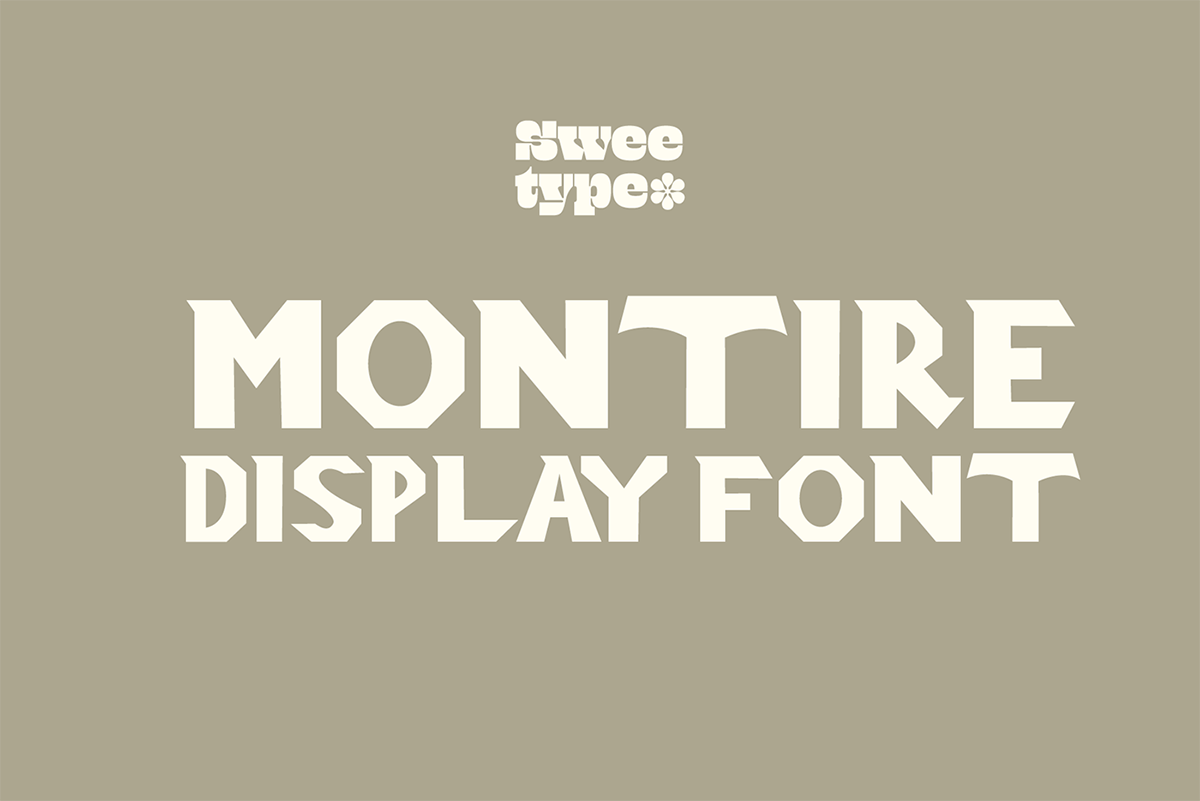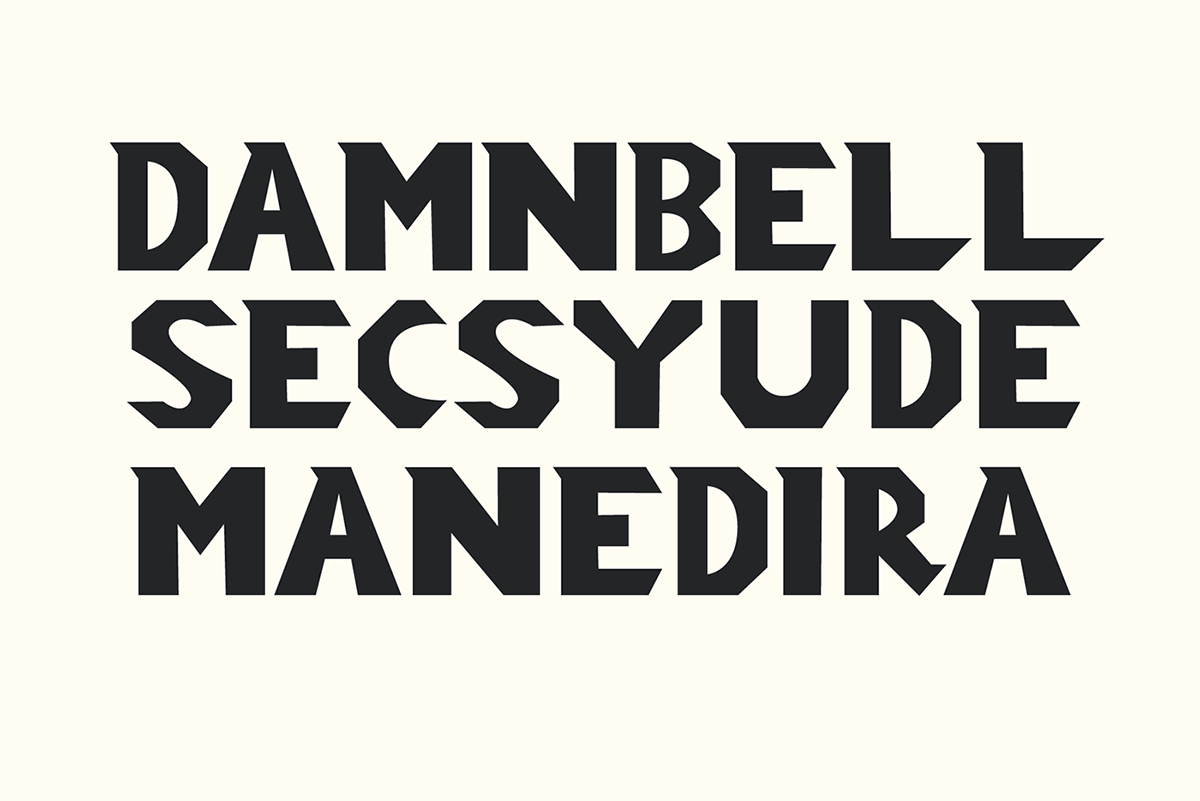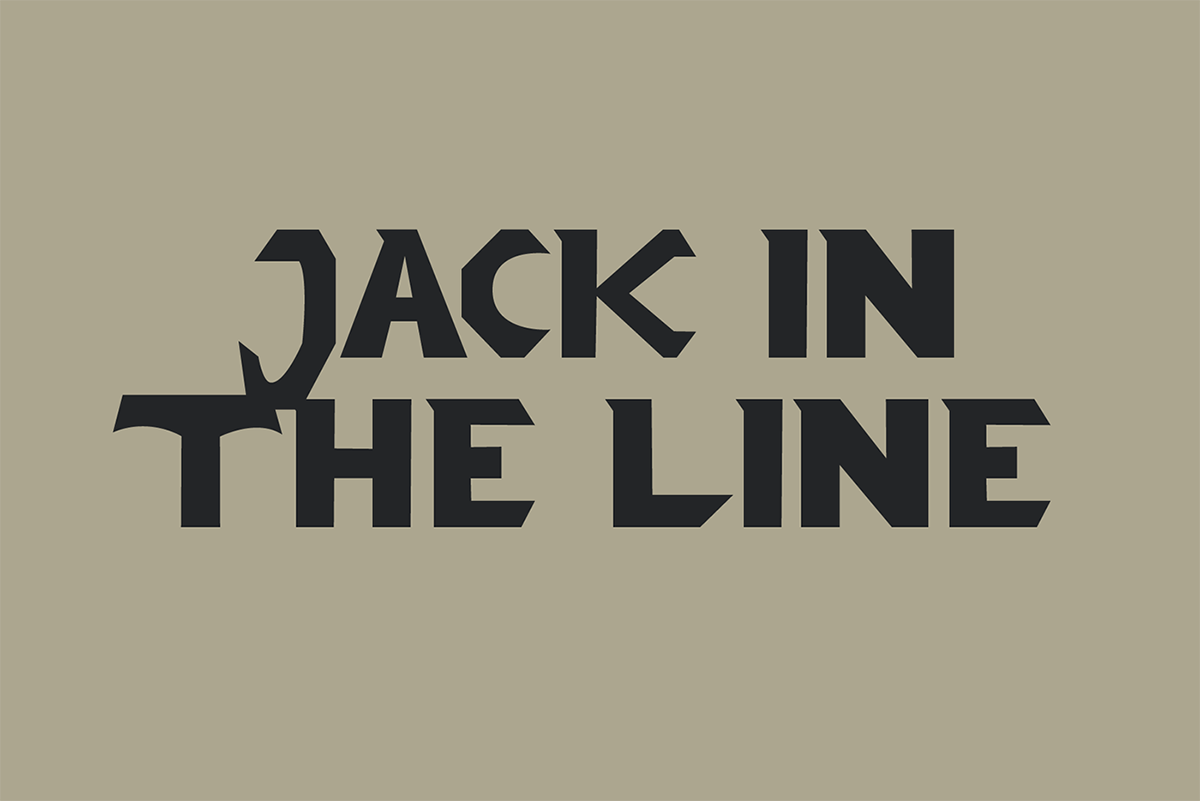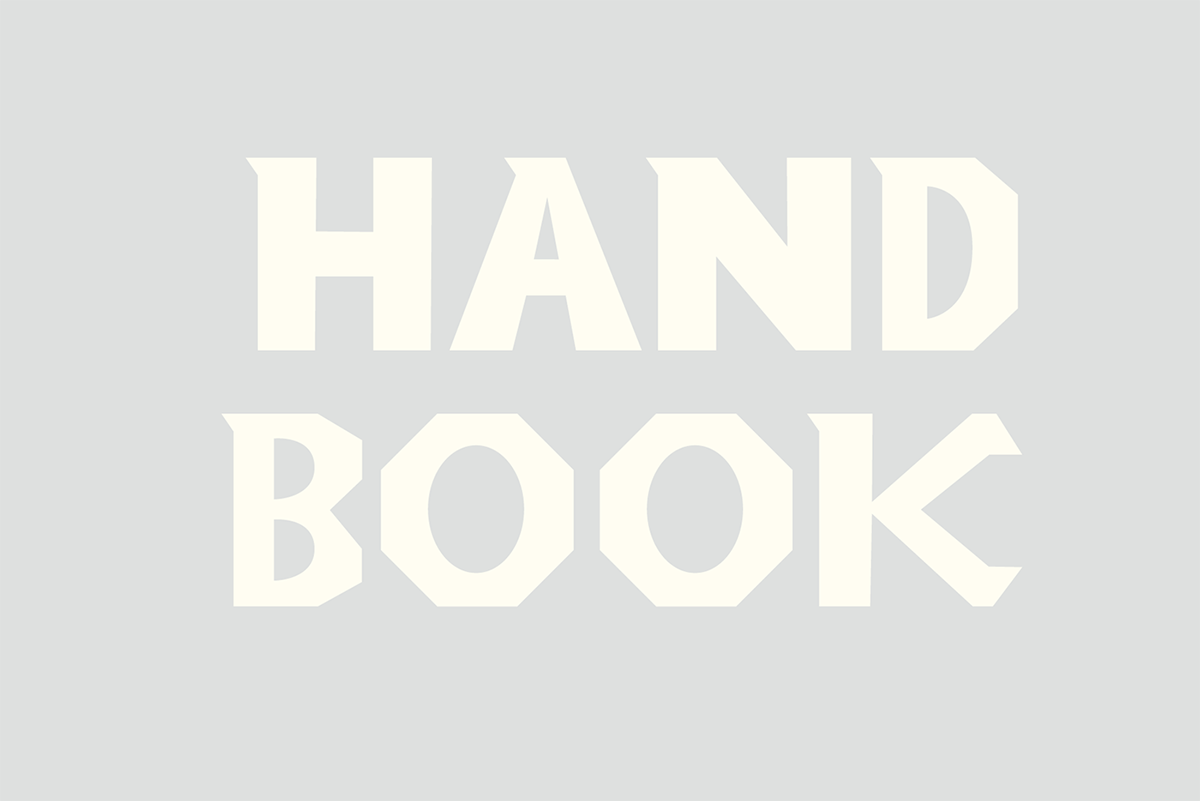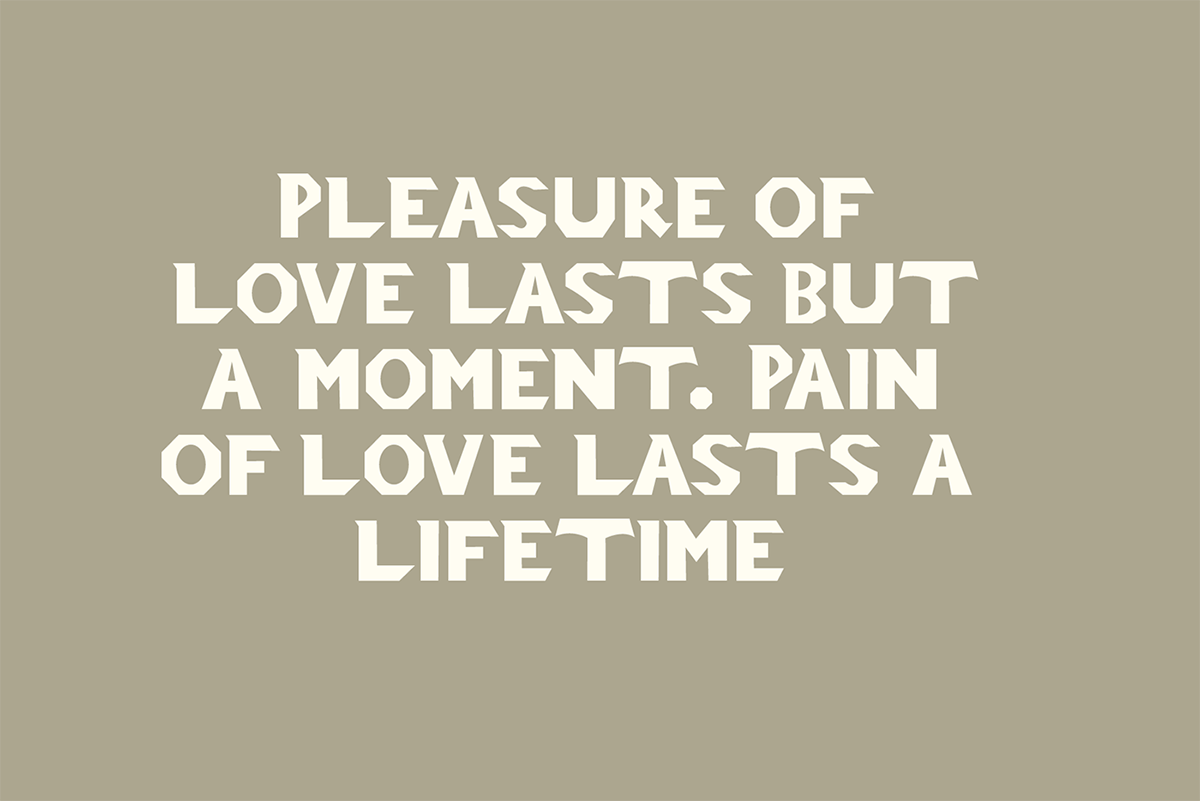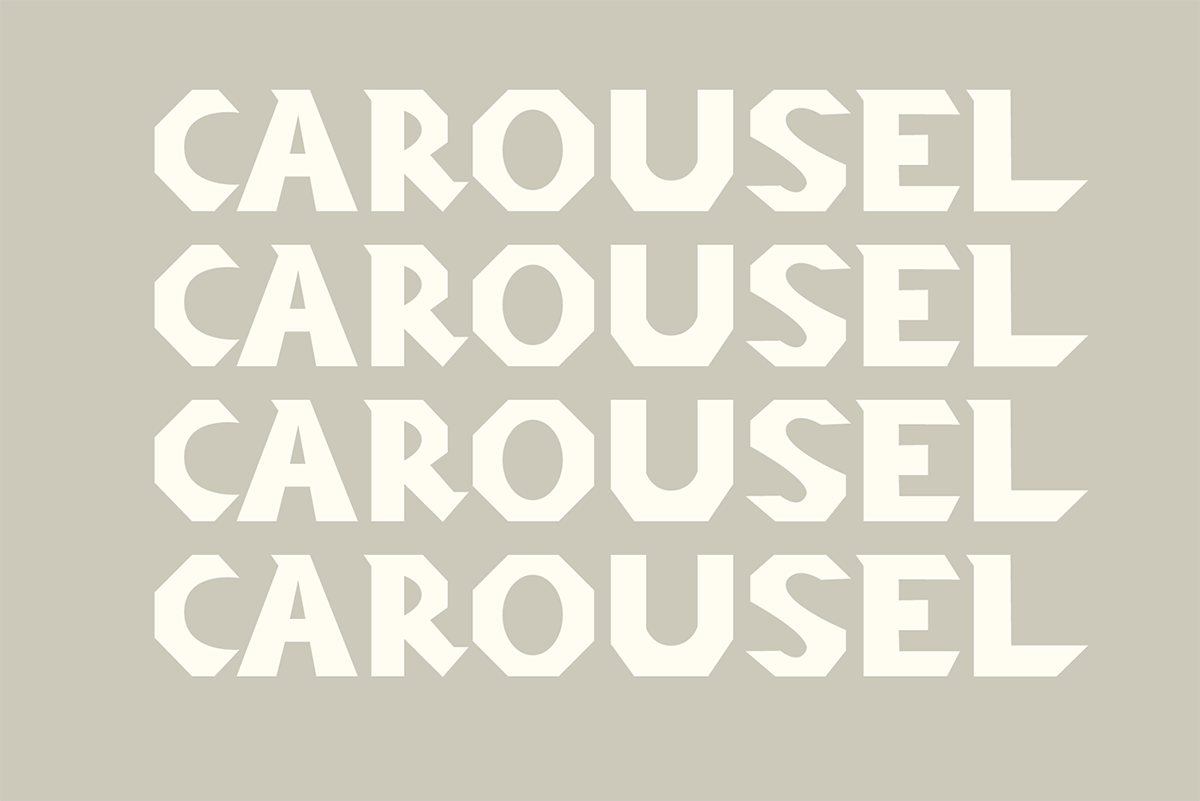
Montire Display Font is a stunning display font with a bold and modern feel. Perfect for headlines, logos, and other design projects that require a strong, eye-catching typeface.